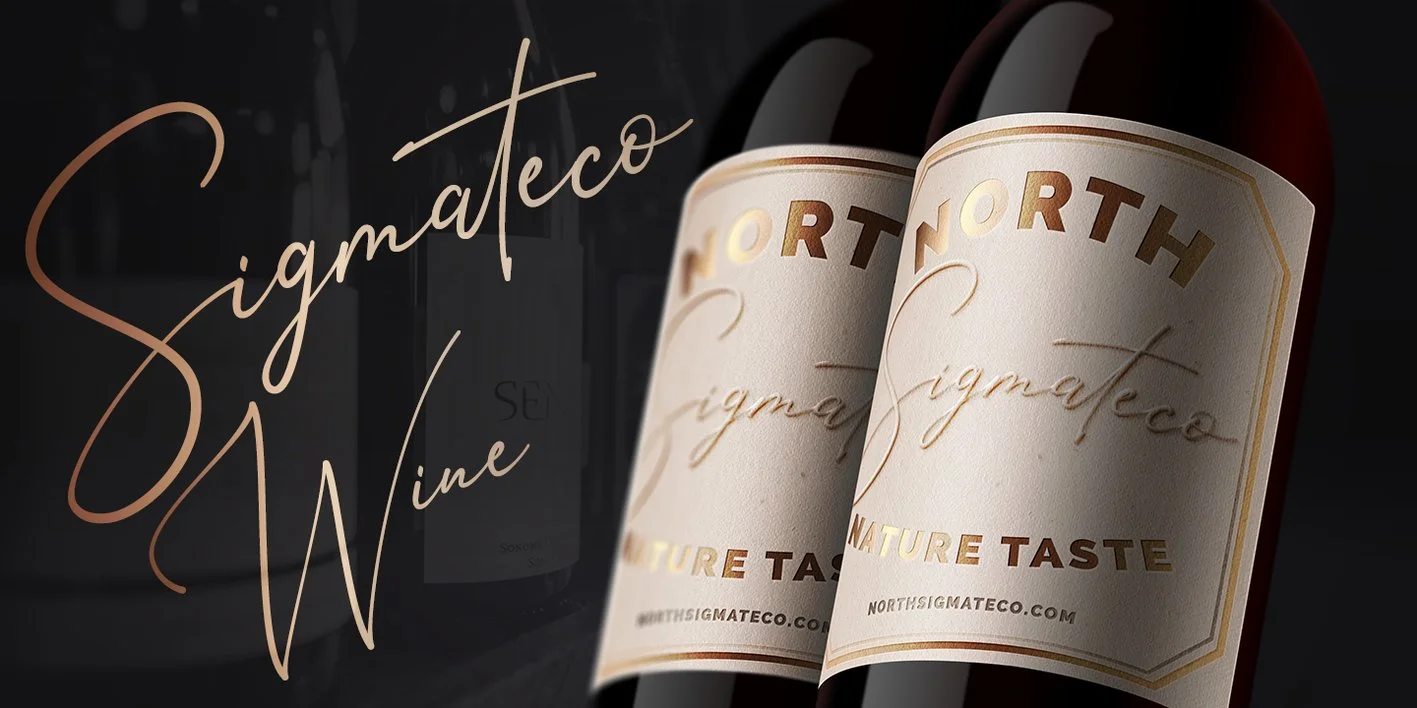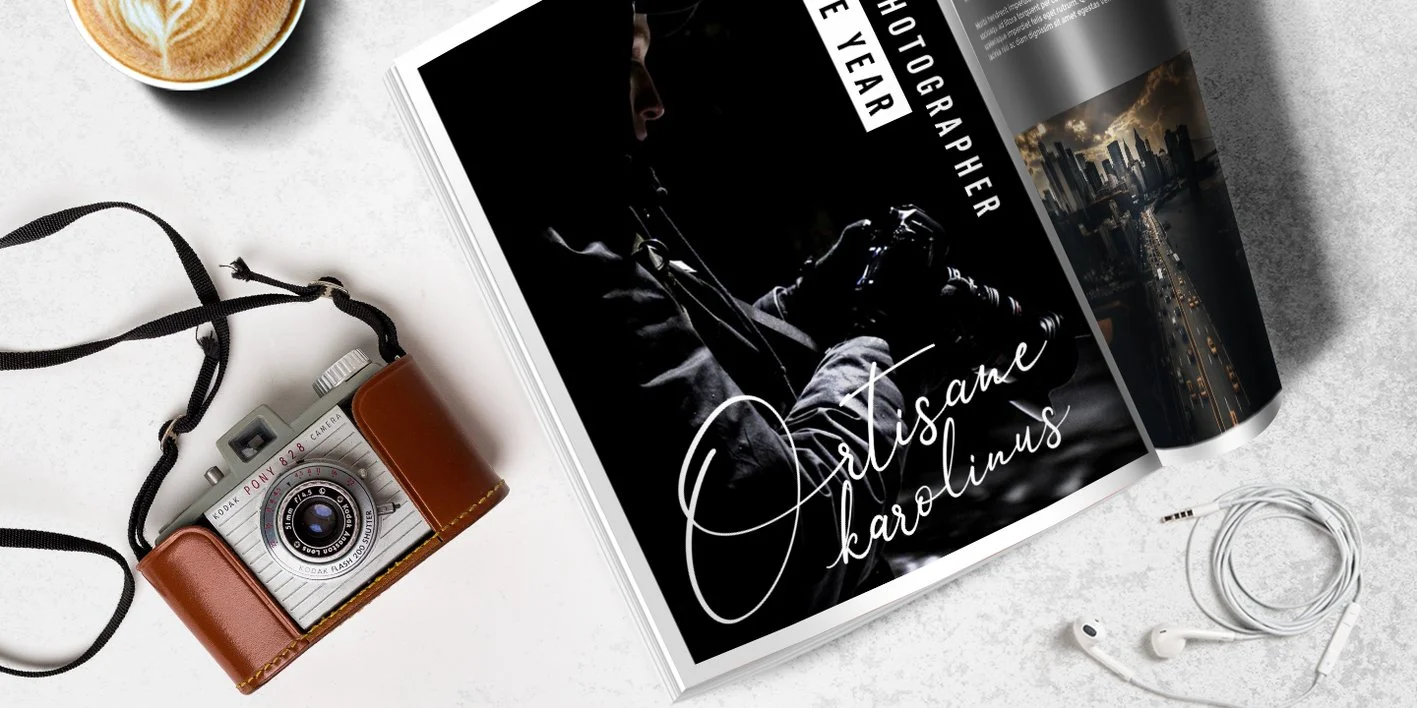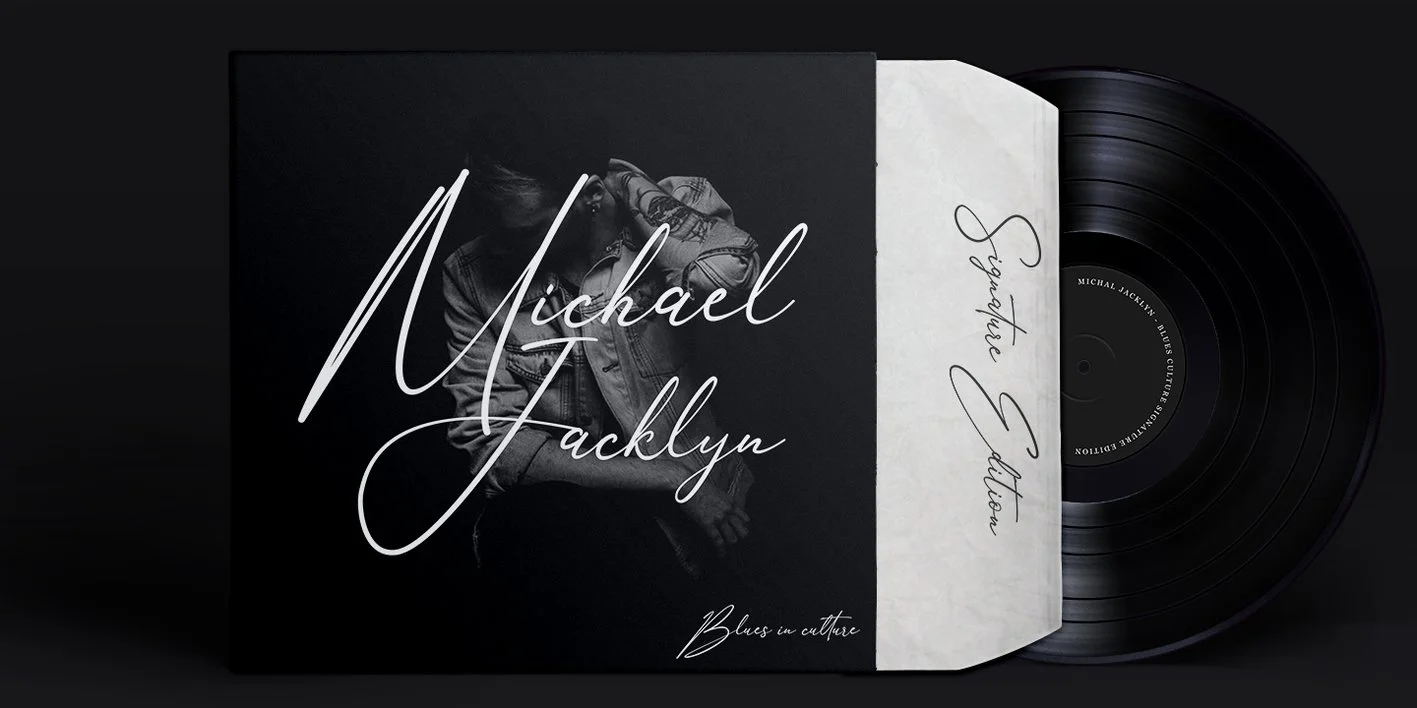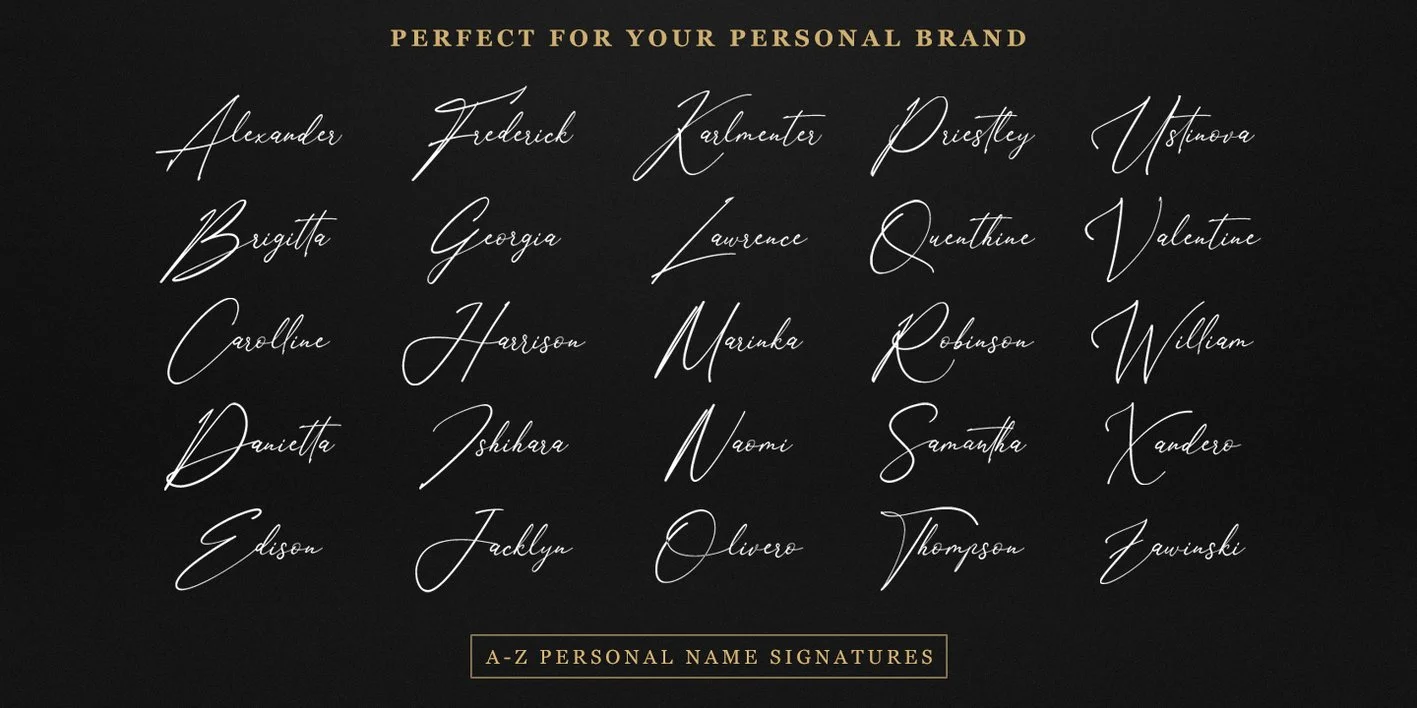
Anthoni Signature Font
The Anthoni Signature Font excels in sophisticated design applications including professional business branding, executive corporate identities, distinguished law firm logos, premium product packaging, formal correspondence, prestigious certificates, elegant business cards, refined portfolios, upscale restaurant branding, and authoritative marketing materials. Its distinguished script style makes it perfect for projects requiring masculine elegance that communicates strength and establishes credible brand positioning with audiences seeking professional sophistication and trustworthy design solutions.
What makes the Anthoni Signature Font truly exciting is its exceptional ability to convey confident professionalism through boldly crafted letterforms. The font features strong, decisive strokes with authoritative flourishes and commanding proportions that create a distinctly professional appearance. Each character displays masterful attention to detail with confident curves, powerful connections, and executive spacing that give text a distinguished, hand-lettered quality. The font's professional character and authoritative rhythm create an atmosphere of competence while maintaining elegant sophistication and approachable credibility.
The Anthoni Signature Font family typically includes regular weight with extensive character coverage, featuring uppercase and lowercase letters, numerals, punctuation marks, and international characters. The typeface often incorporates stylistic alternates, contextual ligatures, and professional swashes that enhance its signature authority. These additional elements provide designers with creative flexibility to customize text appearance and achieve more natural-looking executive handwriting that reflects the font's distinguished and professional character.
This distinguished signature font captivates professional audiences through its remarkable balance of strength and sophistication. Unlike weak or uncertain fonts that lack executive presence, Anthoni Signature Font embraces confident leadership while maintaining refined elegance appropriate for high-level business communications. The font's authoritative character makes it essential for corporate brands, professional services, and executive applications where projecting competence and reliability is fundamental to success in competitive business environments.
The Anthoni Signature Font presents designers with an outstanding opportunity to incorporate executive sophistication into their professional projects. From corporate consulting firms to prestigious business brands, this font delivers the authoritative signature aesthetic that resonates with professional audiences who value competence and trustworthiness. Its distinguished appeal ensures your designs communicate executive credibility while the signature styling adds distinctive personality that reflects professional excellence and business leadership in any application requiring authoritative typography solutions.